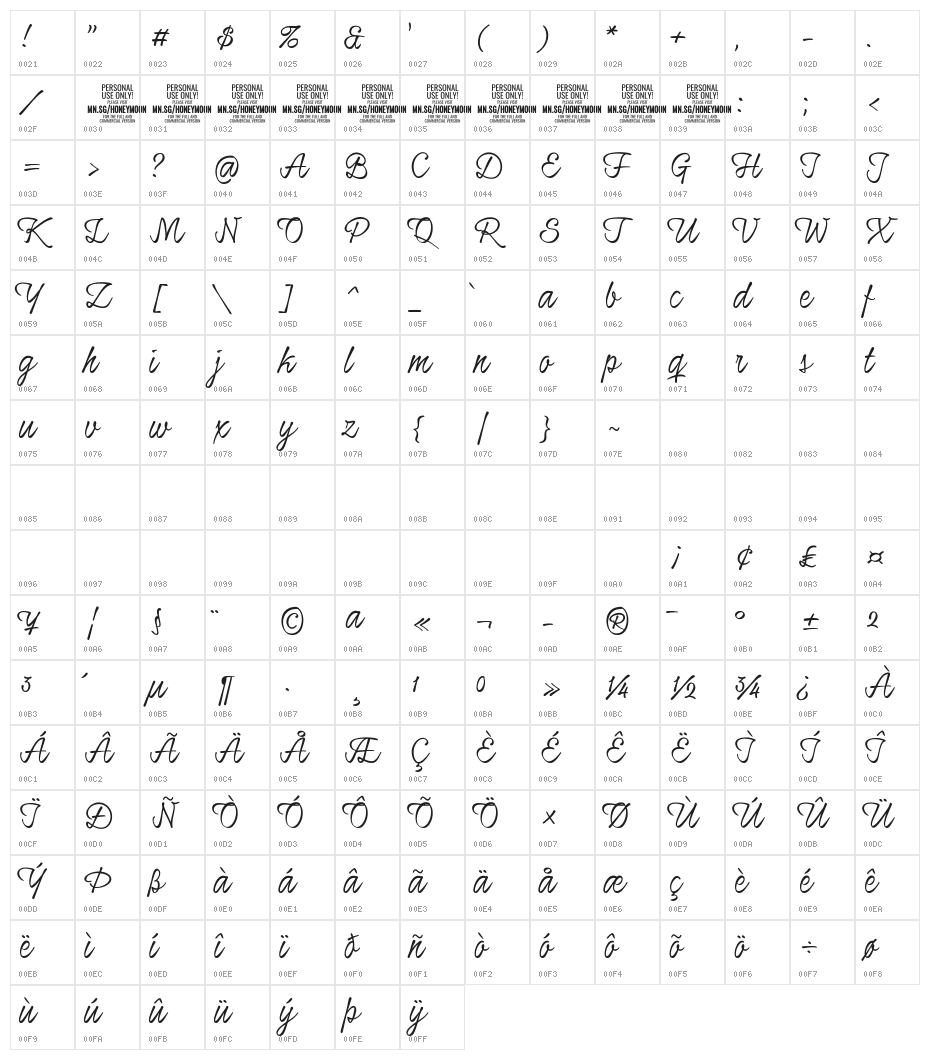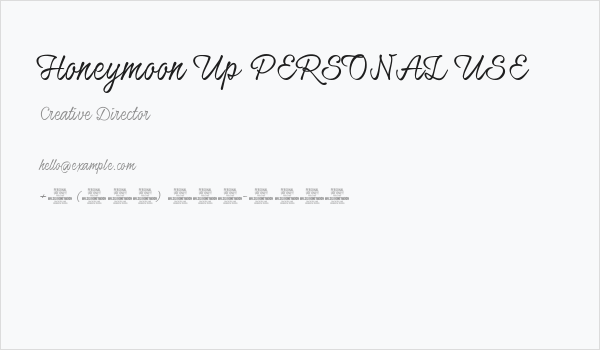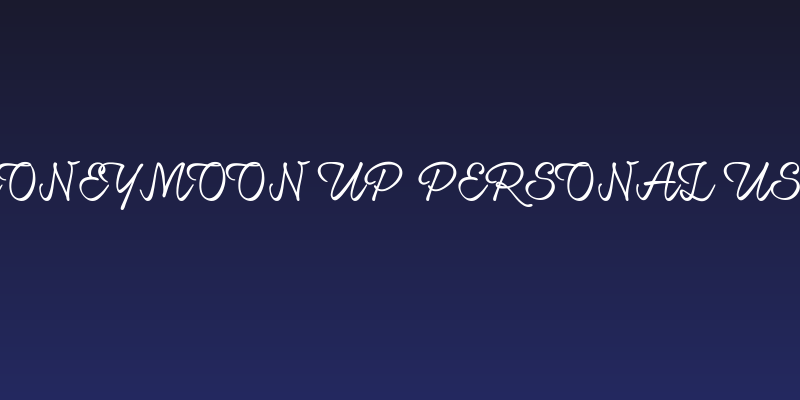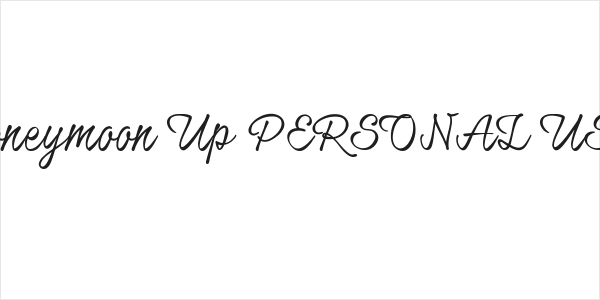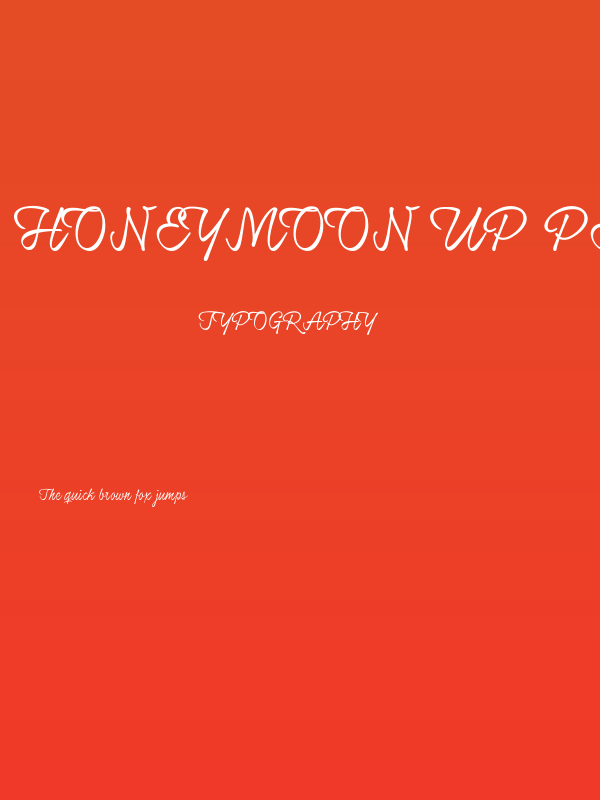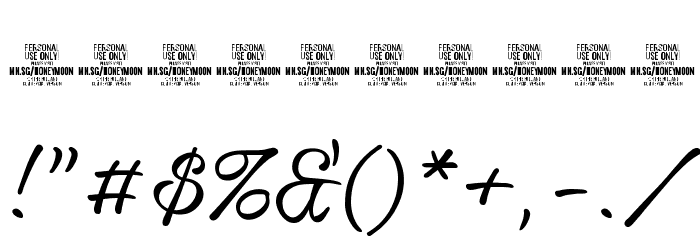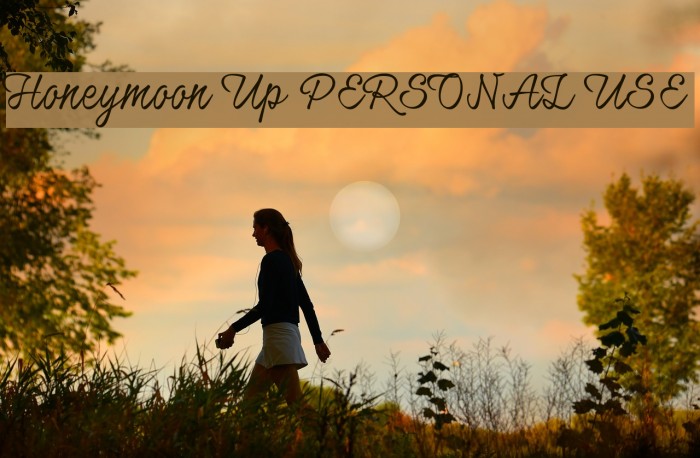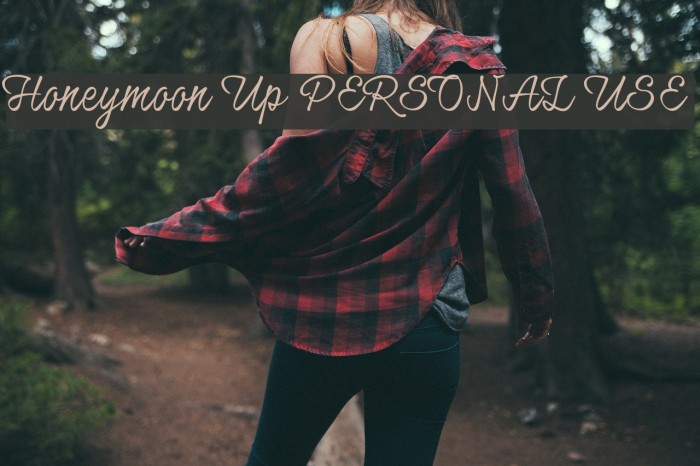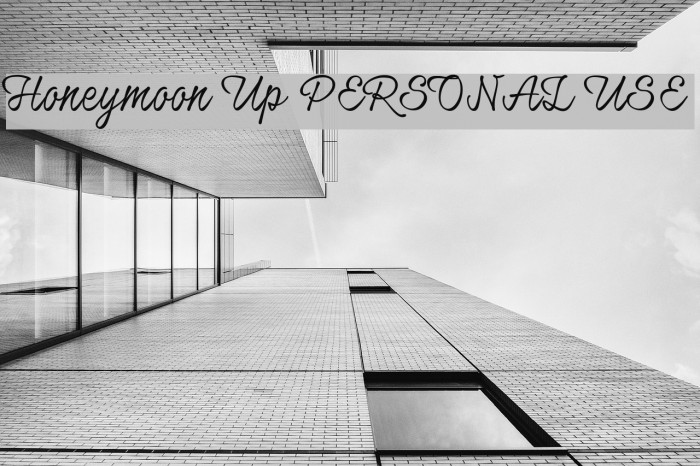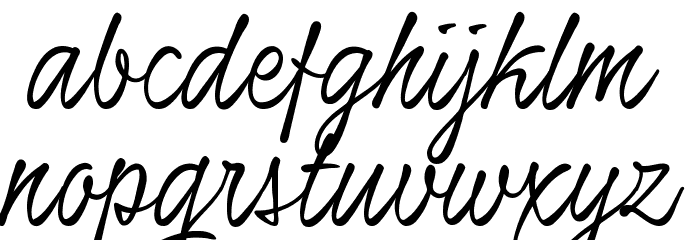
Honeymoon Up PERSONAL USE Font
Honeymoon Up PERSONAL USE Description
This font features an elegant and flowing script style, characterized by its smooth, cursive strokes and graceful curves. The uppercase letters are slightly more ornate, with loops and flourishes that add a touch of sophistication. The lowercase letters maintain a consistent flow, enhancing readability while retaining a stylish appearance. The numerals and special characters are designed to complement the overall script style, ensuring a cohesive look across all text elements. This font exudes a sense of romance and elegance, making it ideal for formal and decorative applications.
| Overall Style | Elegant, Romantic |
| Use Case | Headlines, Invitations, Decorative text |
| Proposed Projects | Ideal for wedding invitations, greeting cards, elegant branding, and decorative projects. |